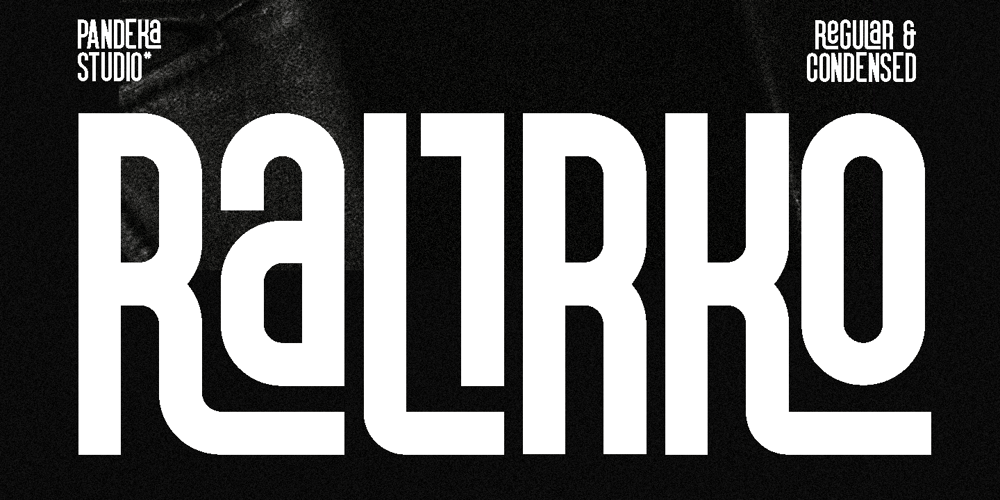
Ralirko Font Family was designed by Sagara Nararya and published by Pandeka Studio. Ralirko contains 2 styles and family package options. Introducing Ralirko! An Condensed font with decorative ligature fontsRalirko is a simple, condensed sans serif font with a bold and complex personality. It was purposely crafted to be used in large point sizes, although it doesn’t lose its magic in small point sizes. It is perfect for headlines, billboards, magazines, websites, titles, posters, branding, and logos. With tons of ligatures, alternates, and other features to choose from, you can make your project stand out from the rest.There are also ligatures to help give a little different presentation when needed.Features Ralirko Main Files Regular and Condensed Has Decorative Ligatures Instructions (Access special characters in all apps, even in Cricut Design) Accessible in Adobe Illustrator, Adobe Photoshop, Microsoft Word even Canva! PUA Encoded Characters. Fully accessible without additional design software Feel free to follow, like and share. Thanks so much for checking out my shop!Pandeka Studio